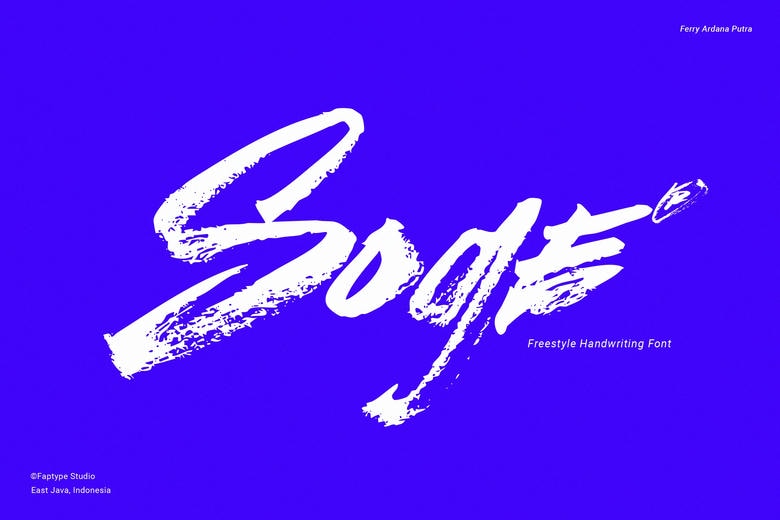
Soge Font
Soge is a handwritten script brush font that has the elements of elegance and playfulness in each of the strokes. It is personal and charming, flowing and has its own rhythm, making the invitations, branding, and social media stand out. Its elegant style becomes an addition of warmth, class, and creativity to a project.
Soge Brush Script Font